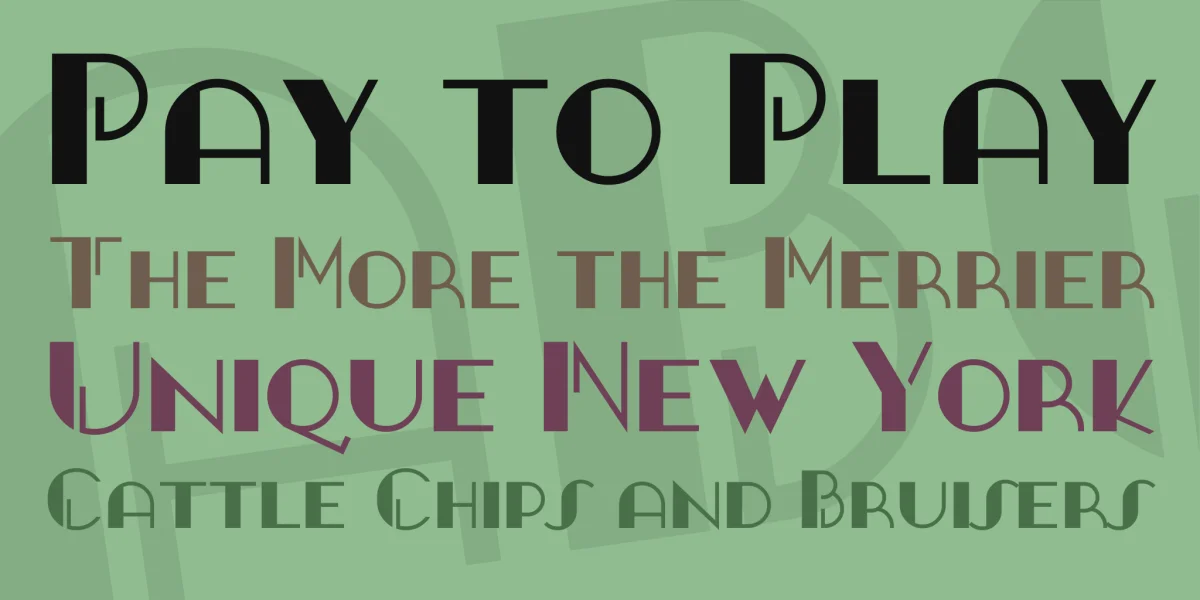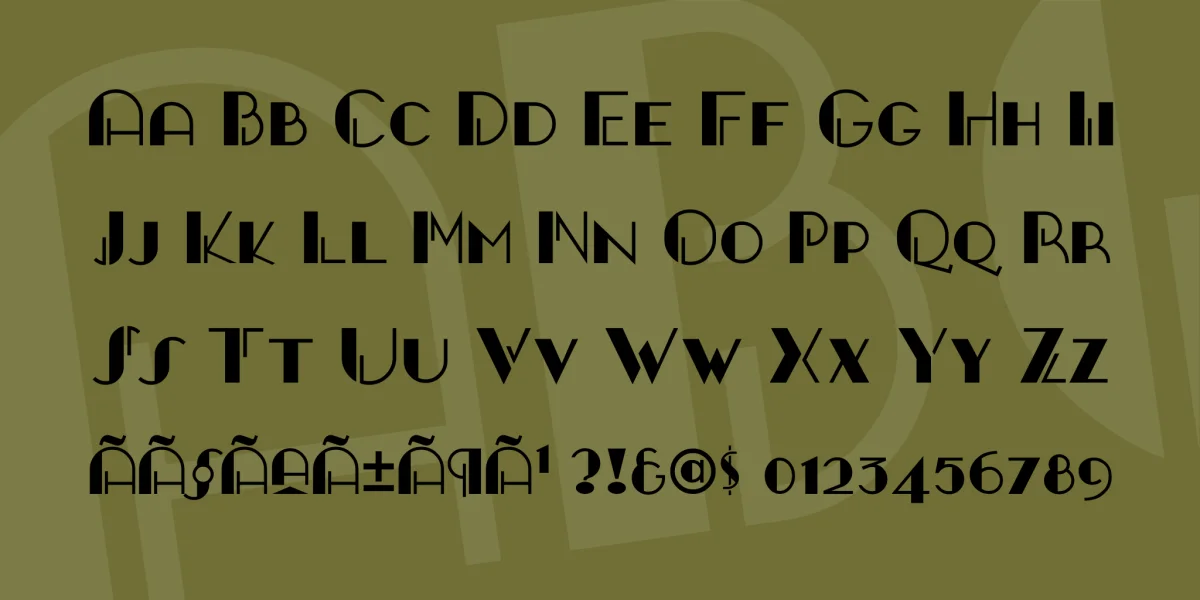
Created to duplicate dry-transfer letters used in the NPL's first Underground Enigma. The font was identified as Grock-but-some-letters-have-been-changed. "Gangue" is the worthless rock in which valuable minerals occur, so it's a G-rock, pronounced just like "gang", so the whole thing should be pronounced "gangway" with a French accent.